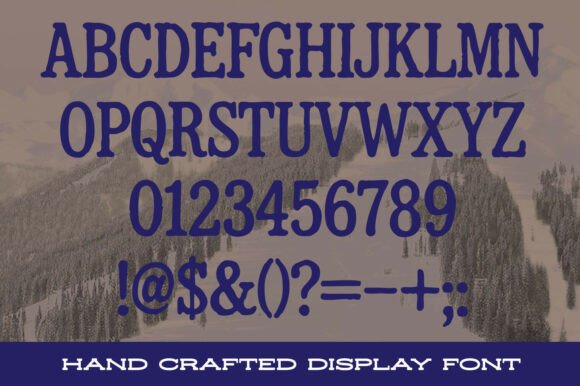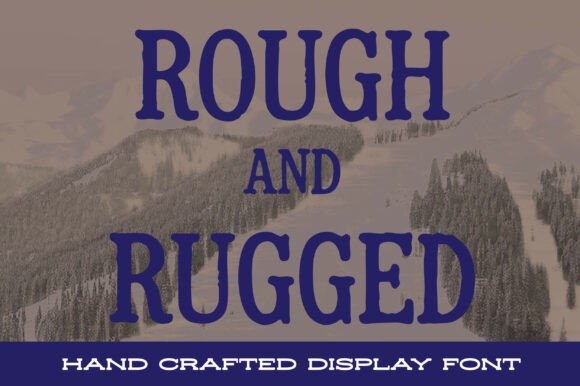
Introduction to Lenawee Font Font
Fonts play a crucial role in design, and the Lenawee Font font is a typeface that brings both character and versatility to any project. Whether you’re working on a branding project, a website, or a print design, the Lenawee Font font offers a unique style that can elevate your work.
Lenawee is a distressed, skinny vintage font with rough edges and an organic, hand-drawn feel.
Inspired by antique type specimens and time-worn signage, its tall, narrow characters bring a touch of rustic charm while maintaining readability Each letter has been carefully crafted with natural imperfections, giving it an authentic aged look perfect for posters, packaging, logos, and vintage-themed designs.
Key Features of Lenawee Font Font
Why Choose Lenawee Font Font?
The Lenawee Font font is more than just a typeface – it’s a design tool that helps you communicate your message with style and clarity. Its unique character set and versatile design make it suitable for a wide range of applications, from elegant invitations to bold headlines.
With its carefully crafted letterforms and balanced proportions, the Lenawee Font font ensures readability and visual appeal across all mediums.
What makes Lenawee Font font special?
The Lenawee Font font stands out with its unique design, exceptional readability, and versatility across various design applications.